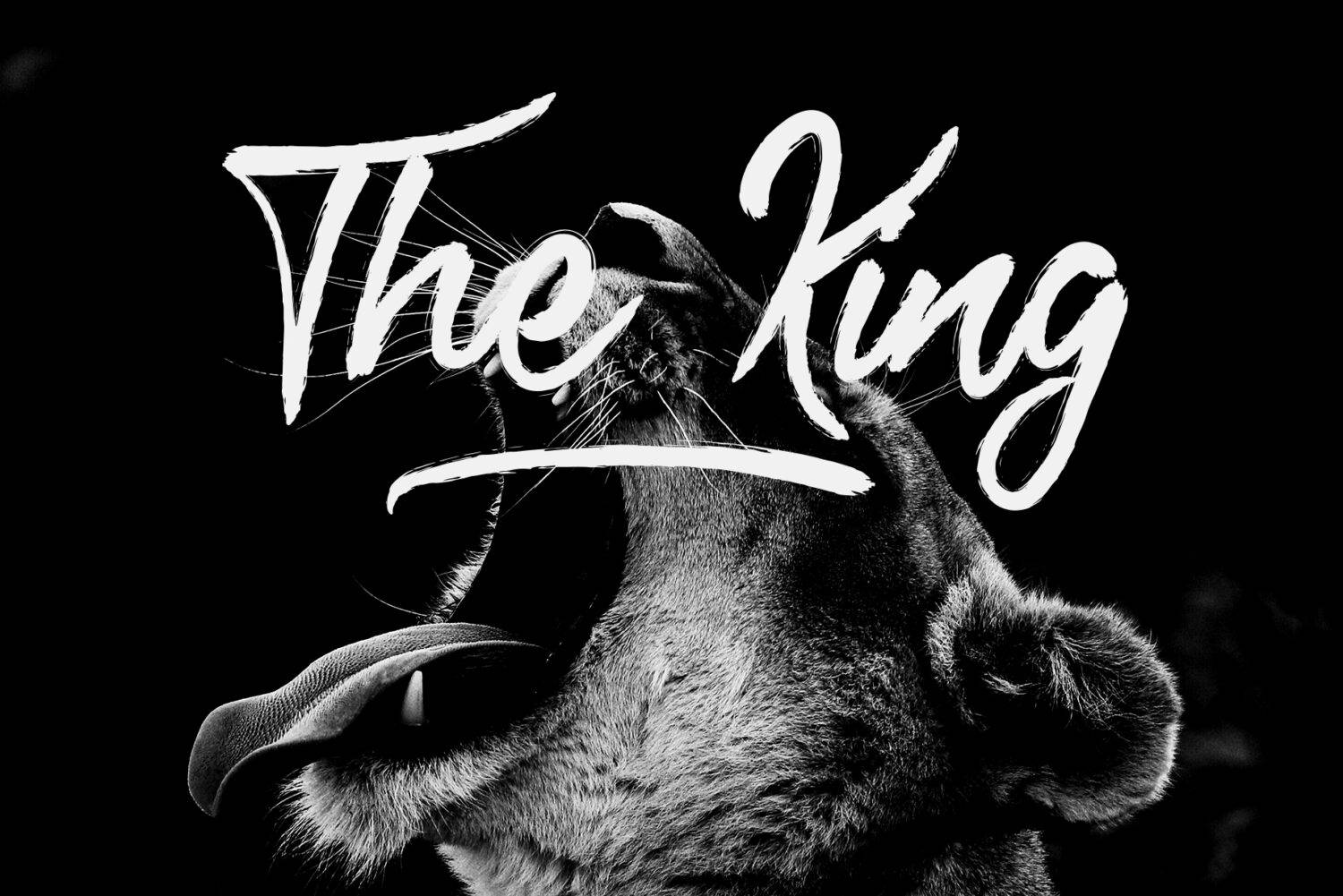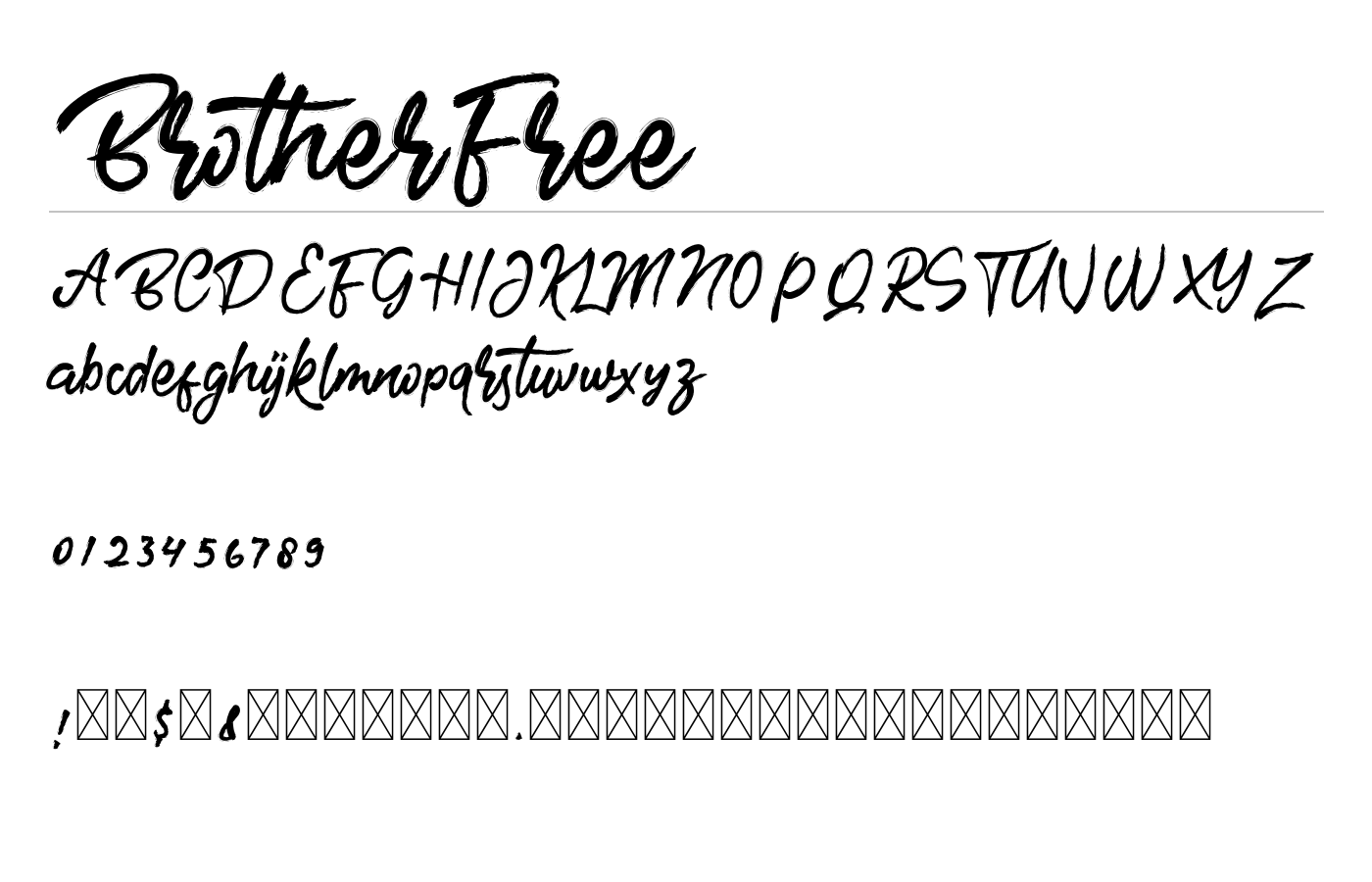
Brother Font is a stylish, handwritten script that captures the casual, authentic feel of brush lettering. Its dynamic strokes and natural flow make it perfect for creative projects seeking a personal, artistic touch, ideal for logos, greeting cards, or social media graphics where warmth and personality are key.
Brother Font
About Brother Font
| Font family | Brother Font |
| Designer | Agung Rohmat |